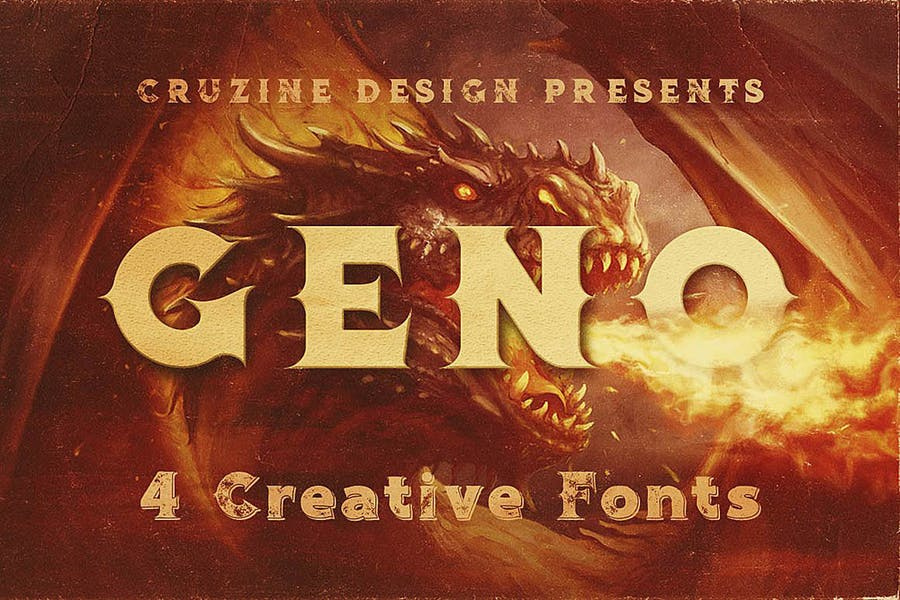
Geno Typeface Font
Geno Typeface Font is perfect for biotechnology company branding, genetic research communications, medical laboratory signage, scientific innovation marketing, DNA sequencing presentations, hereditary health services, genomic medicine advertising, and advanced life sciences campaigns.
What makes Geno Typeface Font exciting is its genetic precision that embodies the systematic accuracy and scientific excellence of genetic research with molecular authenticity and hereditary sophistication. The font features structured letterforms with DNA-inspired proportions and genetic character that evoke double helixes, chromosome mapping, and the intricate complexity of genetic science and hereditary research. Its distinctive genetic styling and scientific appeal communicate precision, innovation, and hereditary expertise, making every message feel sequenced by genetic code and touched by the fascinating complexity of genetic science and molecular discovery.
The Geno Typeface Font family includes regular weight with uppercase and lowercase letters, numerals, punctuation marks, and comprehensive scientific symbols. Premium versions often feature multiple weights and genetic alternates that enhance the scientific, molecular aesthetic perfect for biotechnology and research applications.
This precise genetic typeface brings instant credibility and scientific authority to any genetics-focused project. Geno Typeface Font Free Download delivers exceptional results for biotechnology companies and research institutions seeking to communicate genetic expertise, scientific innovation, and molecular precision to scientific audiences and healthcare professionals.
The molecular character of Geno Typeface Font makes it particularly valuable for genetic testing companies, biotech research firms, and molecular medicine manufacturers. Its excellent readability ensures scientific specifications and genetic communications remain clear while maintaining the distinctive hereditary aesthetic that appeals to scientists seeking authentic genetic research experiences and molecular innovation.
Biotechnology industry marketers appreciate how Geno Typeface Font effortlessly conveys genetic authenticity and scientific precision. The font's structured proportions and molecular details create authoritative research materials that establish trust with audiences who value genetic innovation, hereditary research, and the systematic complexity of genetic science and biotechnology advancement.
The versatile precision of this typeface extends to personalized medicine, genetic counseling, and hereditary health education where genetic authenticity enhances scientific credibility and molecular appeal. Geno Typeface Font Free Download provides creative professionals with an essential tool for developing memorable, science-driven designs that resonate with audiences who embrace genetic research, molecular innovation, and the structured precision of genetic science in their healthcare and biotechnology experiences.